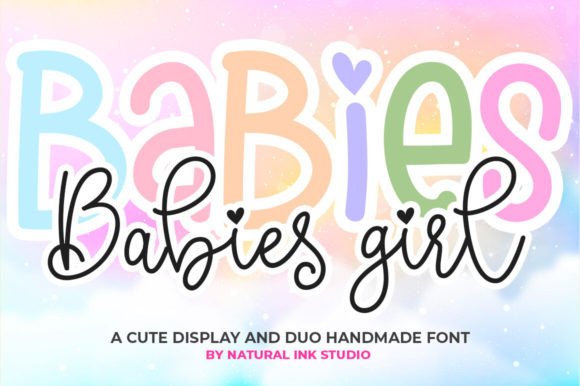
The Quest for the Perfect Font: Discovering Babies Girl Script Font Duo
I still remember the countless hours I spent scrolling through font libraries, searching for the perfect script font for a wedding invitation project. My client wanted something elegant, feminine, and unique, but I was coming up empty-handed. That was until I stumbled upon Babies Girl Script Font Duo. This stunning font duo has been a game-changer for my design projects, and I’m excited to share my experience with you.
A First Impression: What I Love About Babies Girl Script Font Duo
As soon as I opened Babies Girl Script Font Duo, I was captivated by its chic and feminine aesthetics. Here are a few things that I absolutely love about this font:
• ✨ Contemporary and fashionable design: The abstract and spontaneous baseline gives the font a fresh and modern feel.
• ✅ Elegant and versatile: Perfect for wedding invites, thank-you cards, quotes, greeting cards, logos, and business cards.
• 💫 Multilingual support: Cater to a global audience with a font that supports multiple languages.
• 🎨 Perfect for traditional ink prints and watercolor designs: The font’s style complements both traditional and fluid watercolor designs.
While Babies Girl Script Font Duo is an exceptional font, there are a few minor quirks to be aware of:
• 🤔 Steep learning curve for OpenType features: If you’re new to using OpenType features, it may take some time to get familiar with the various glyphs and stylistic alternates.
• ⚠️ Limited availability of certain characters: Some characters may not be available in certain languages or contexts.
The Story Behind Babies Girl Script Font Duo
The story behind Babies Girl Script Font Duo is one of passion and creativity. The font’s designer was inspired by the beauty of handwritten scripts and the elegance of modern typography. With a focus on creating a versatile and feminine font, they poured their heart and soul into crafting a truly unique design.